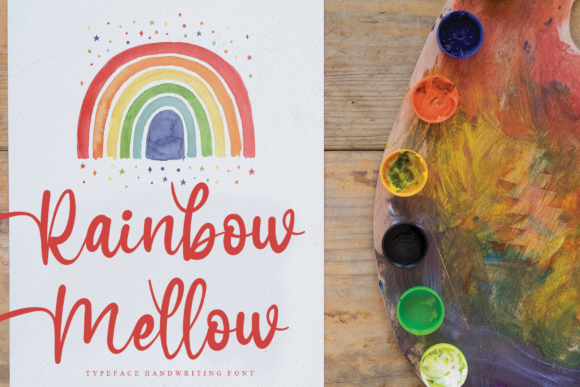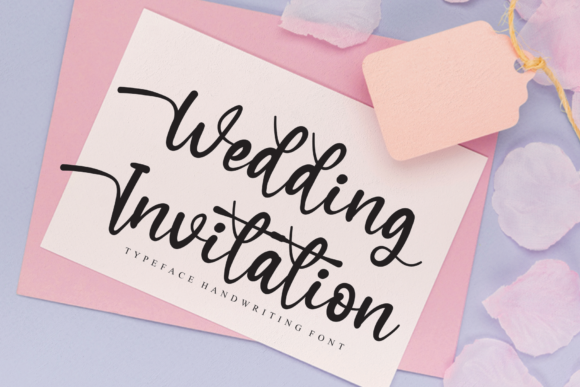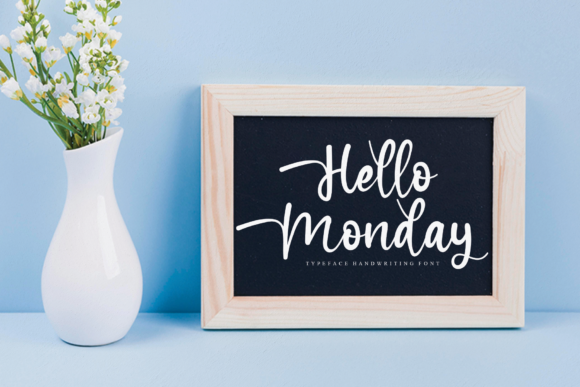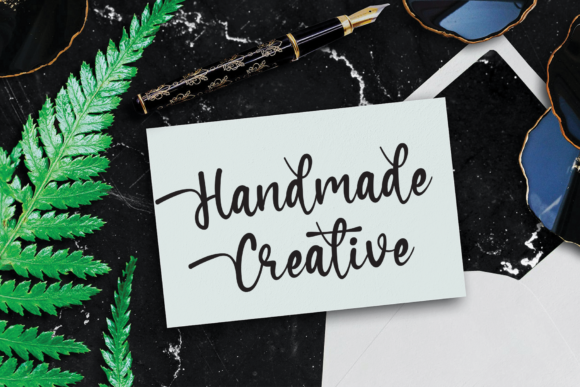
The Butterfly Effect: How a Romantic Handwritten Font Can Transform Your Designs
I’ll never forget the time I was working on a wedding invitation project, and my client asked me to create a custom font that would match the whimsical and romantic vibe of their special day. I spent hours scouring the internet for the perfect font, but nothing seemed quite right. That’s when I stumbled upon the Butterfly font, and it was love at first sight! 💕
With its romantic and warm handwritten style, Butterfly is the perfect addition to any design project that needs a touch of elegance and whimsy. In this article, I’ll share my honest review of the font, provide a practical guide on how to use it, and explore some similar fonts you might love.
An Honest Review of Butterfly Font
- 💫 Romantic and warm handwritten style that’s perfect for wedding, birthday, or anniversary projects
- ✅ Balanced and varied lettering that adds visual interest to any design
- 🎉 Not too thin and not too thick, making it easy to read and beautiful to look at
- 👍 Highly versatile and can be used for a variety of design projects, from digital to print
- ⚠️ Some users may find the font a bit too ornate for very formal or corporate designs
- 🤔 Limited availability of certain OpenType features, such as ligatures or stylistic alternates
The Designer Inspiration Behind Butterfly
According to its creator, Butterfly was designed to evoke the feeling of a warm, sunny day – full of hope and possibility. The designer wanted to create a font that would inspire creativity and romance, while also being highly legible and versatile.
Q: What is the personality of the Butterfly font?
A: Butterfly is a romantic and warm handwritten font, perfect for designs that need a touch of elegance and whimsy.
Q: Does Butterfly support OpenType features?
A: Yes, Butterfly supports some OpenType features, such as glyphs and stylistic alternates, but the availability of certain features may be limited.